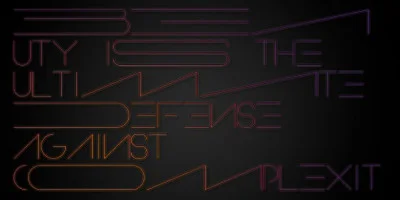
Indice Font
Indice Font is ideal for index publishing systems, reference book layouts, catalog design projects, directory signage materials, organizational chart graphics, and systematic information architecture displays.
Indice Font is exciting because it embodies organizational clarity and systematic navigation, delivering a structured typeface that captures the essence of information hierarchy, logical categorization, and the essential art of making complex data accessible.
The Indice Font family includes systematic variations: Indice Light, Indice Regular, Indice Medium, Indice Bold, indexing alternates, and organizational decorative elements that enhance the font's information structuring character.
Organize information with precision using Indice Font, a systematically crafted typeface that brings structural clarity and navigational efficiency to your most complex information design projects. This organized font excels in creating memorable layouts for publishing houses, library systems, database companies, and information architecture firms that help users navigate vast amounts of data and find specific information quickly. The methodically designed letterforms feature clear hierarchical proportions and systematic spacing that communicate organization, accessibility, and informational authority while ensuring excellent readability across all reference and indexing applications. Perfect for academic indexes, corporate directories, reference guides, and database interfaces that need to present complex information in logically organized and easily navigable formats, this font connects with researchers and professionals who depend on well-structured information systems. Each character categorizes with systematic precision, making every organizational message feel like a carefully constructed roadmap that guides users to the exact information they seek. Indice Font transforms complex communications into navigable resources that help audiences efficiently locate specific information while appreciating the thoughtful organization that makes knowledge accessible and usable.